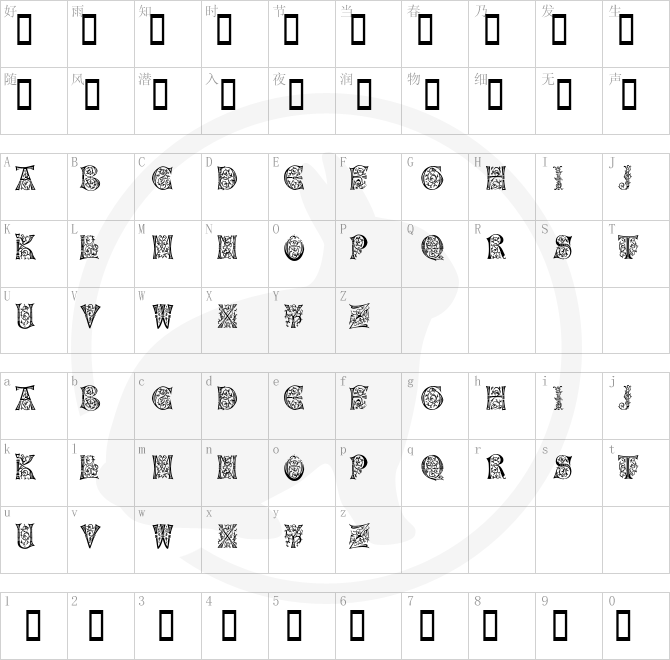
- Font Name:Napoli Initialen
Napoli-Initialen.ttf is a very beautiful artistic font, Napoli-Initialen.ttf is widely used in the design and printing of various books and pictures,Napoli-Initialen.ttf has a strong visual impact,Napoli-Initialen.ttf is a commonly used font in newspapers, magazines and books, and is used in posters, e-commerce Poster design, store design, logo design, font design and other fields.Napoli-Initialen.